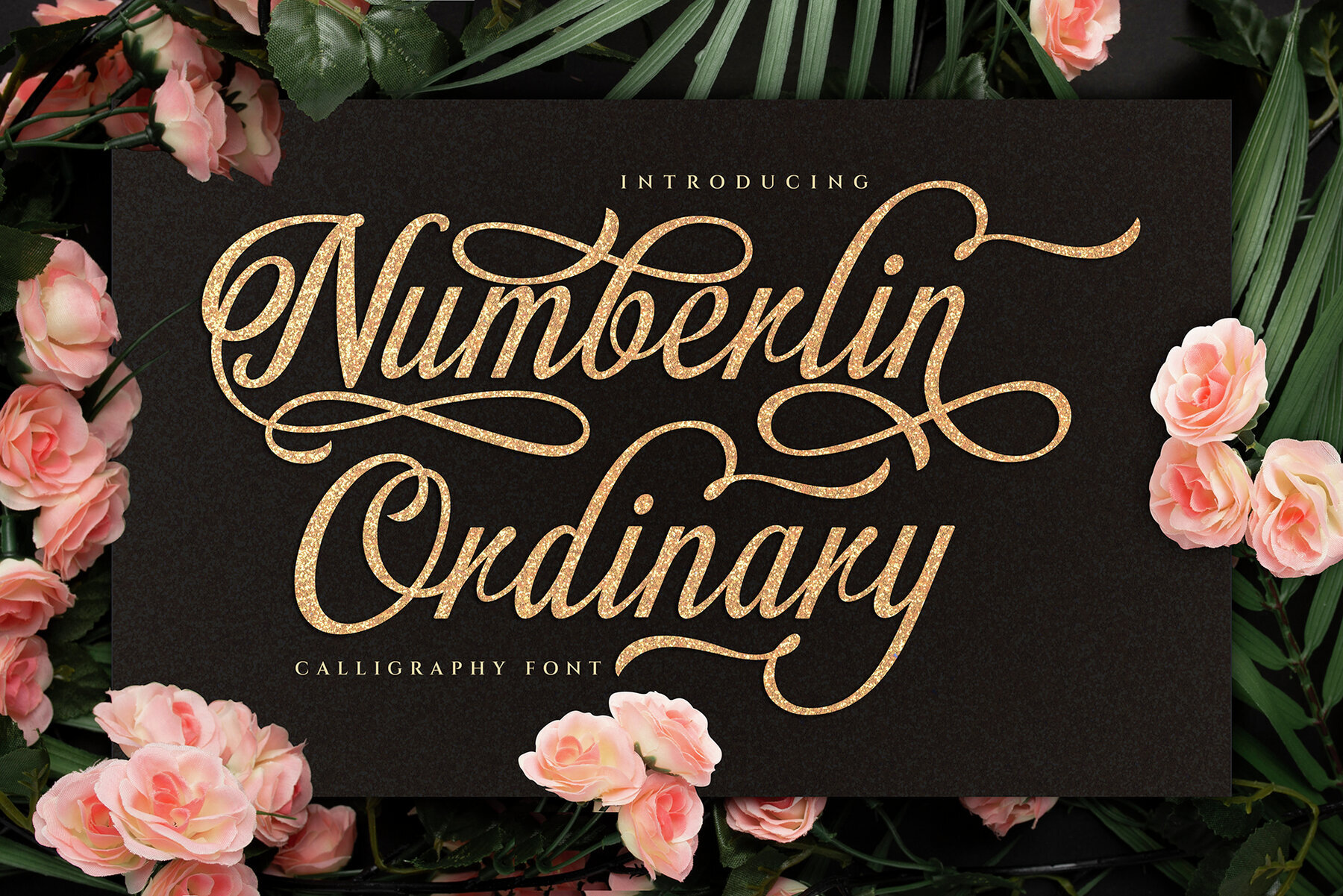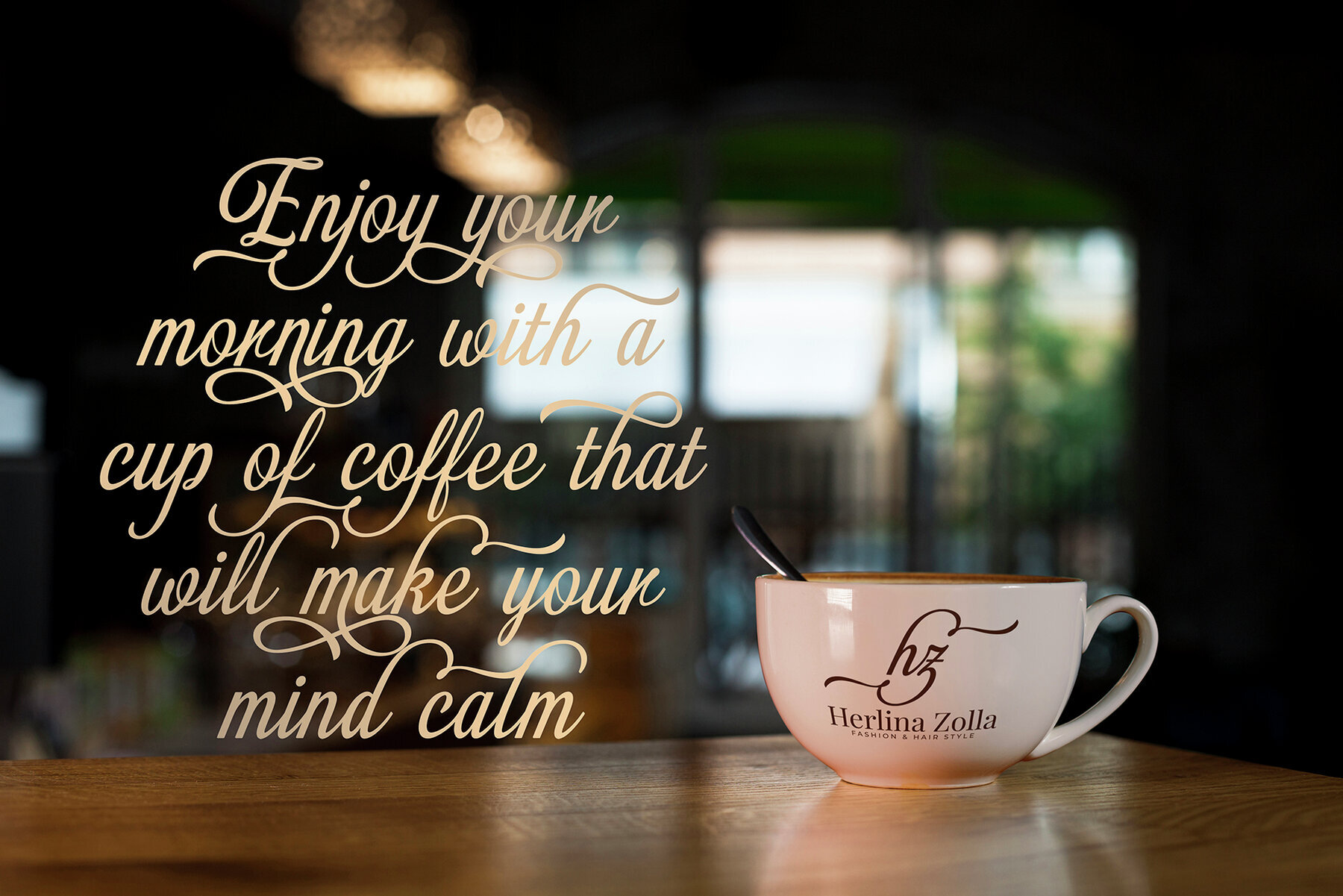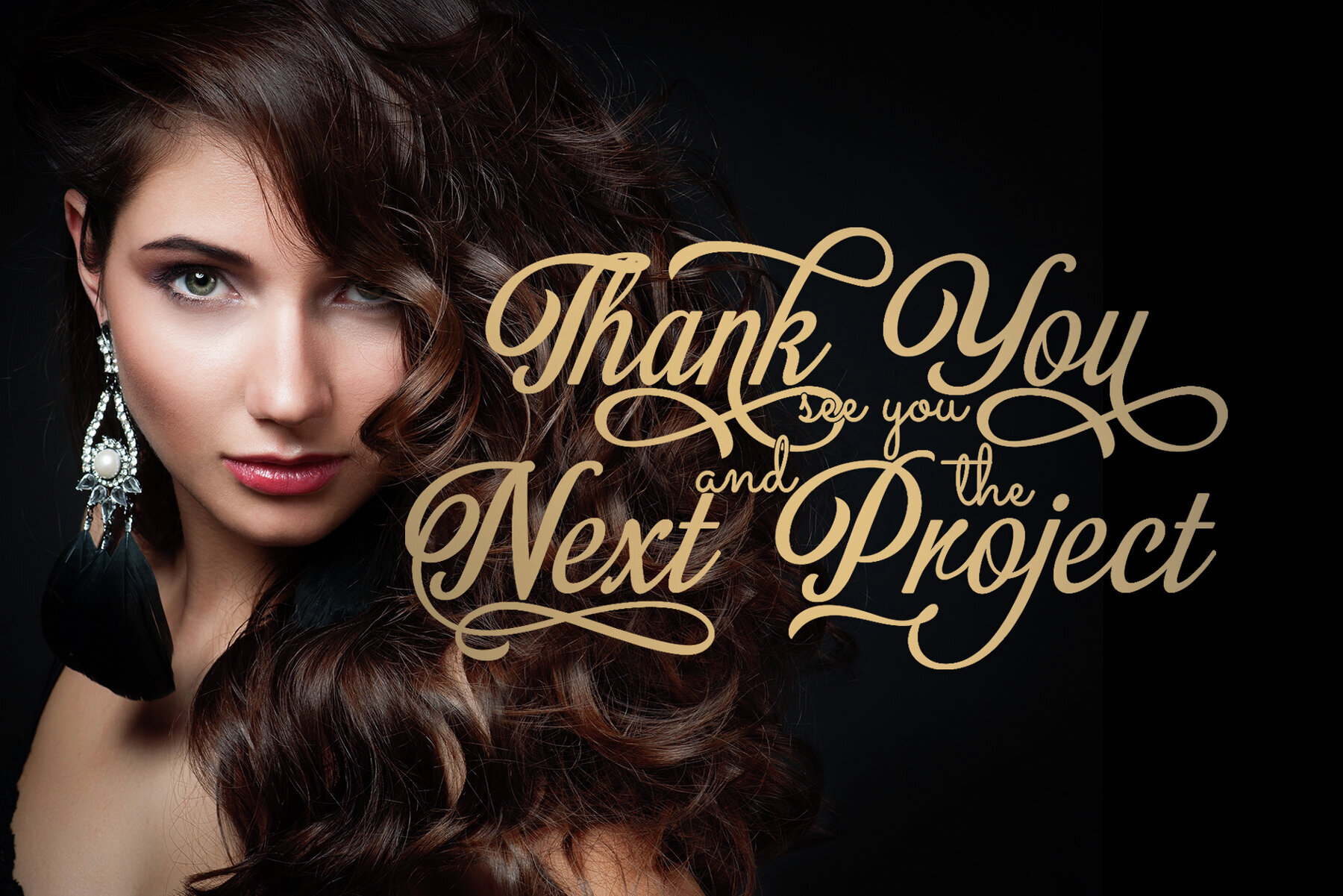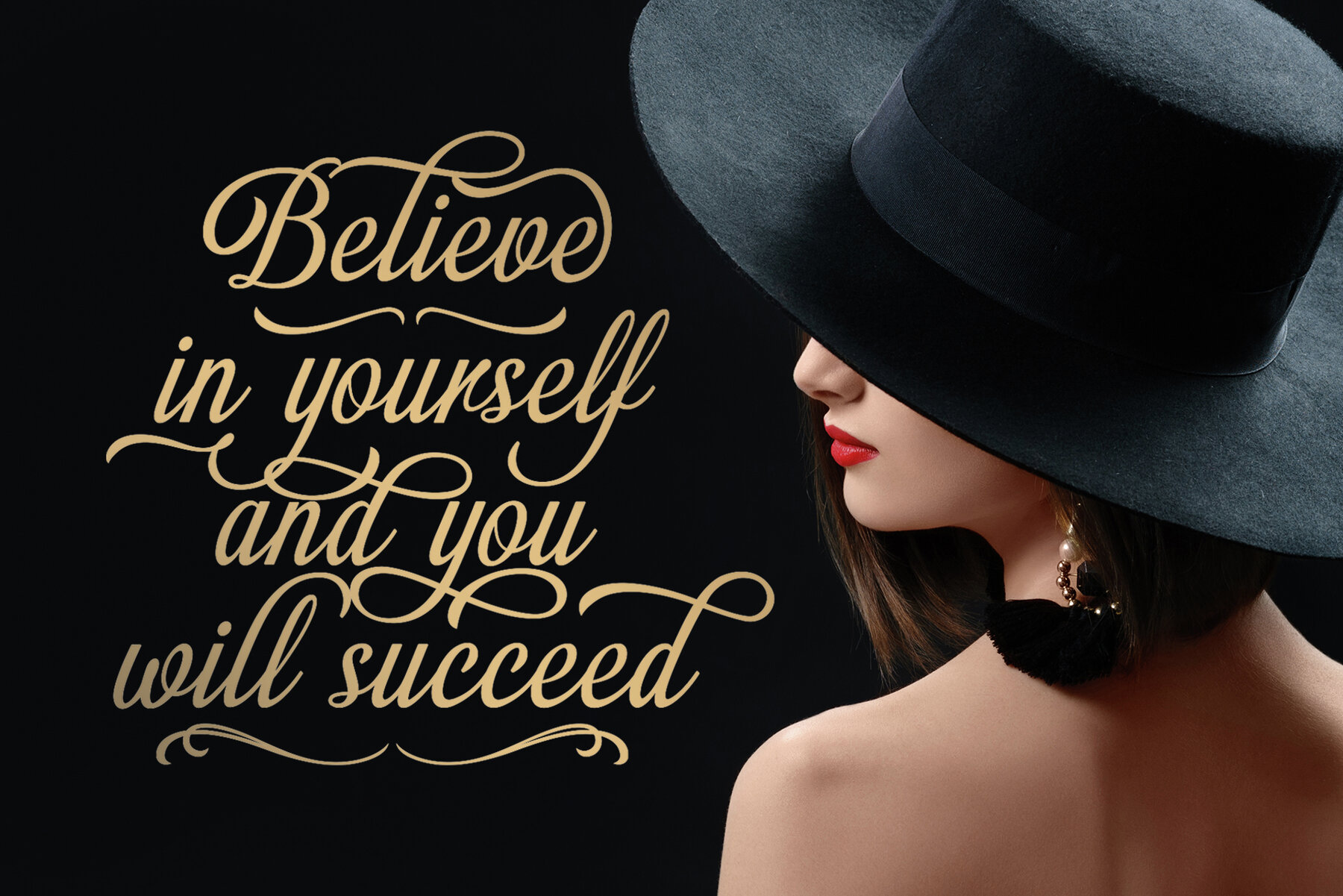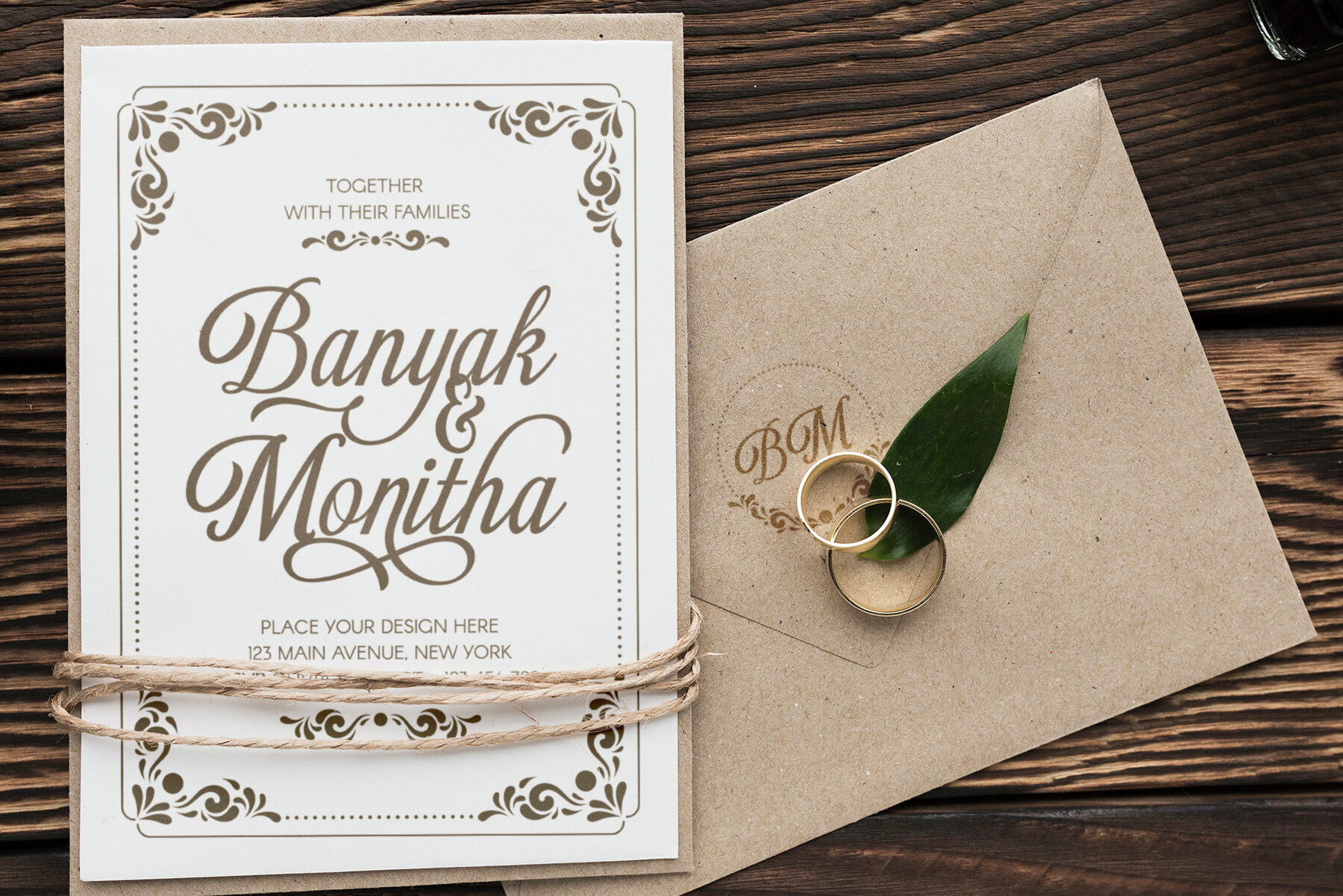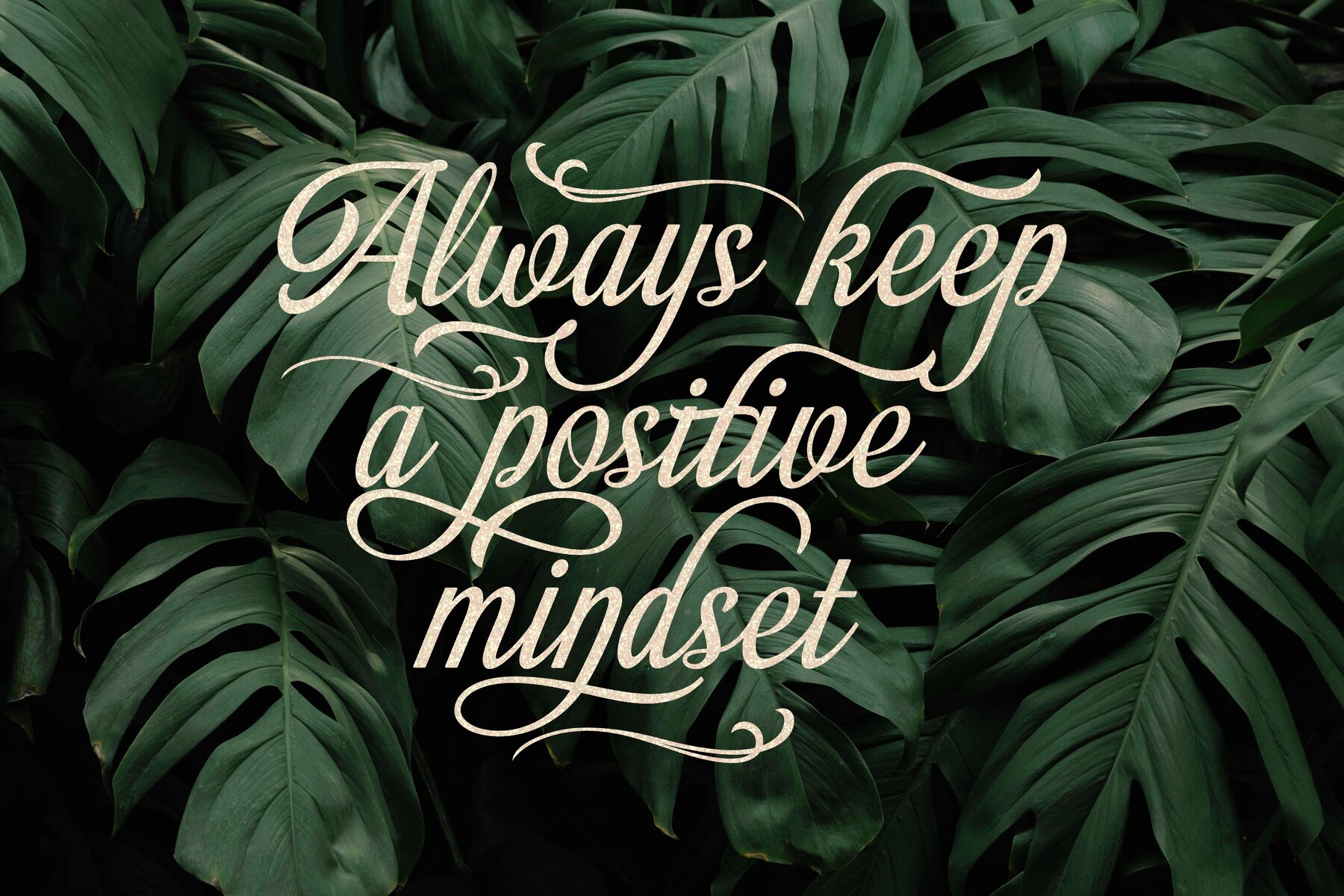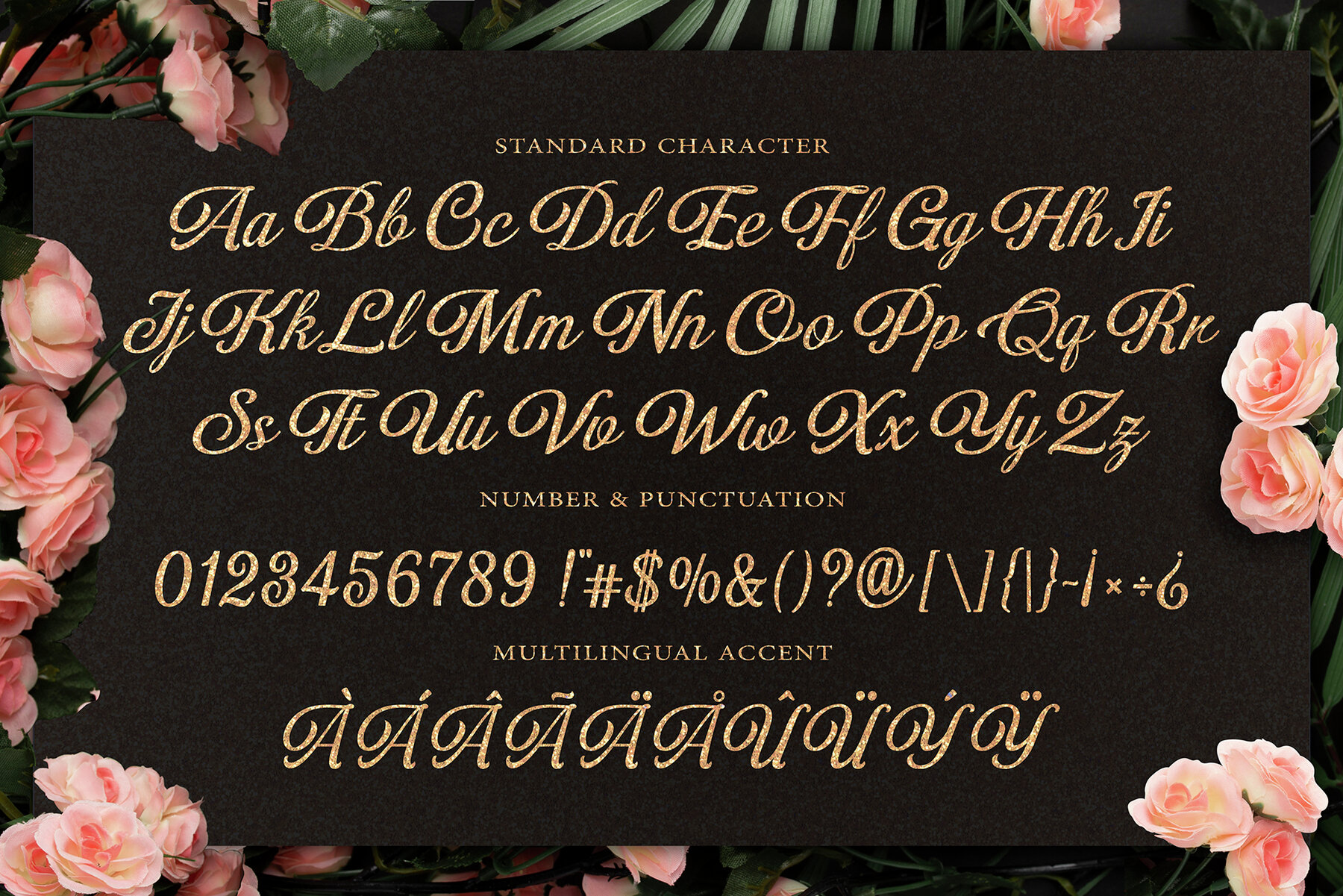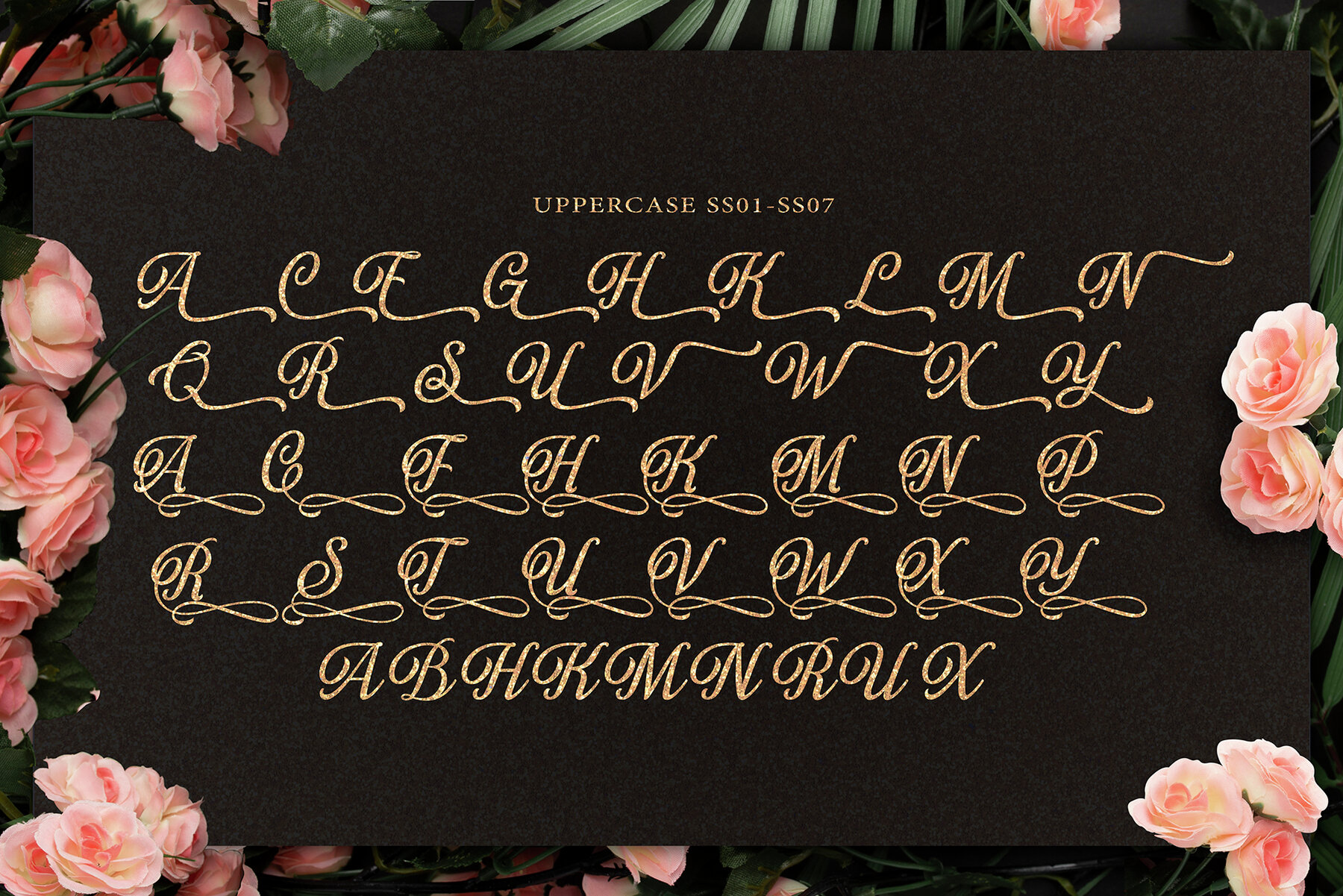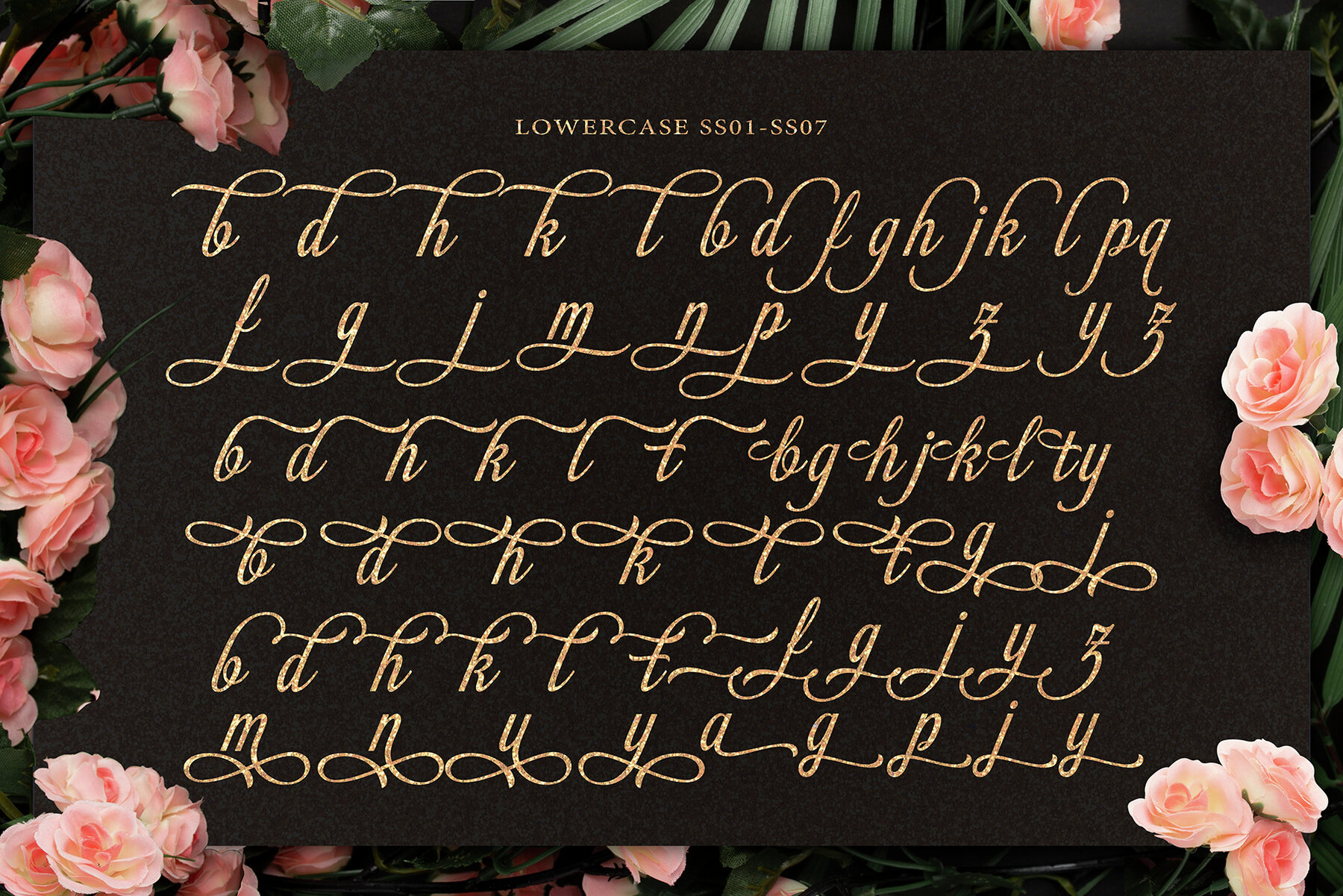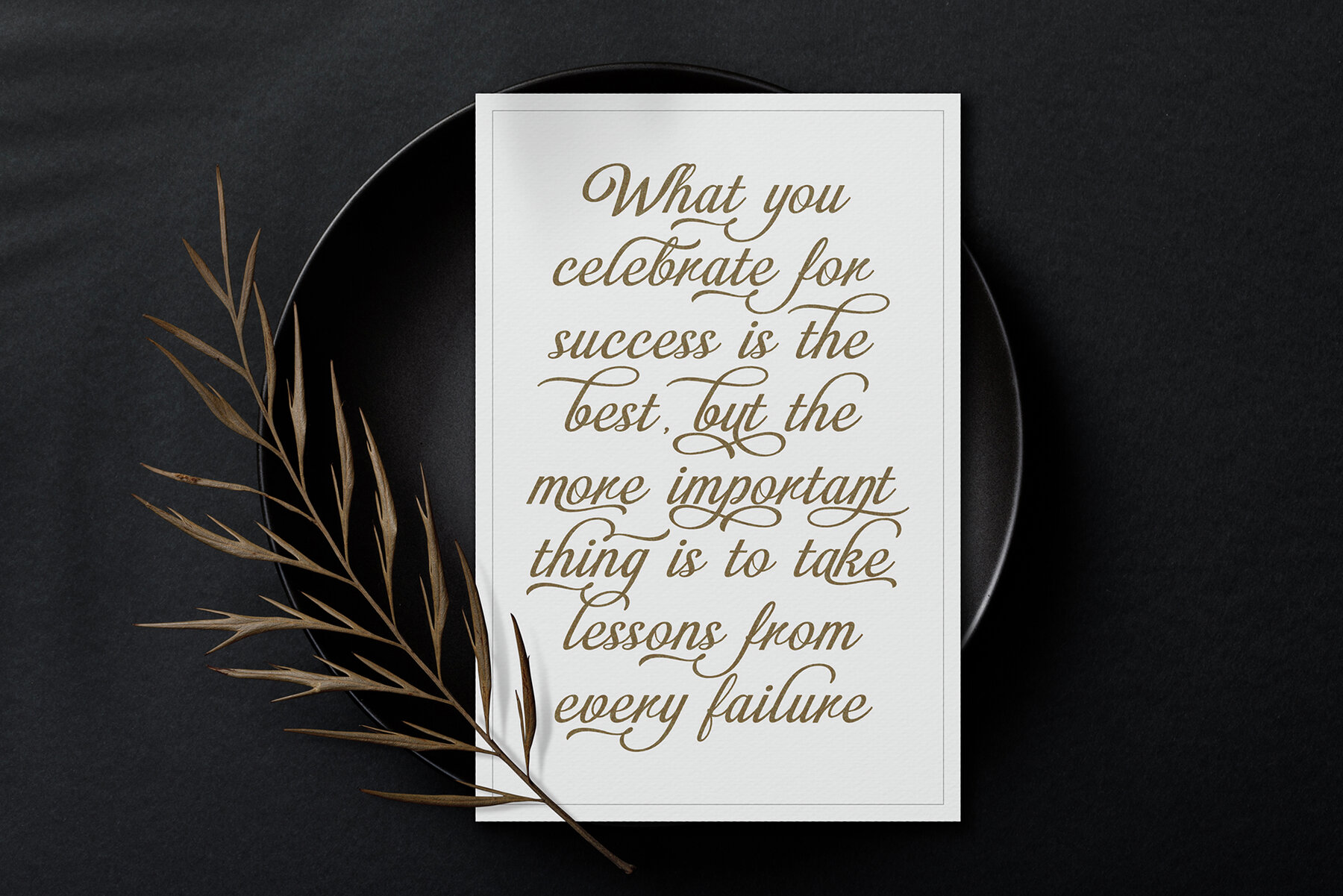
Numberline Ordinary Font
Numberline Ordinary is a lovely script font. This font can be used for various purposes, including for invitations, weddings, birthdays, fashion, products, feminine, beauty, salon, product packaging, quotes, product designs, crafters, labels, photography, watermarks, t-shirts, logos, branding and more.